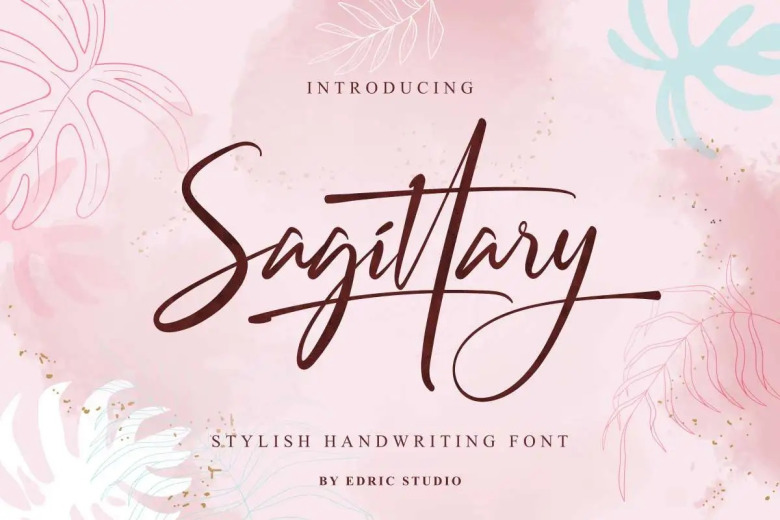
Sagittary Font
Sagittary is a connecting, textured, decorative handwriting cursive font with and a signature typeface designed by EdricStudio. The lines in this font will bring out undeniable beauty and suitable for industries like: Some of areas such as architect, author, cosmetic, craft, homeware, publishing, salon & spa, wedding organizer, and more All the Sagittary Font glyphs include Uppercase and Lowercase Basic characters, Numbers, a broad variety of Punctuation and Symbol, Ligature, and Alternate, Swoosh Typeface.
Sagittary Handwritten Script Font